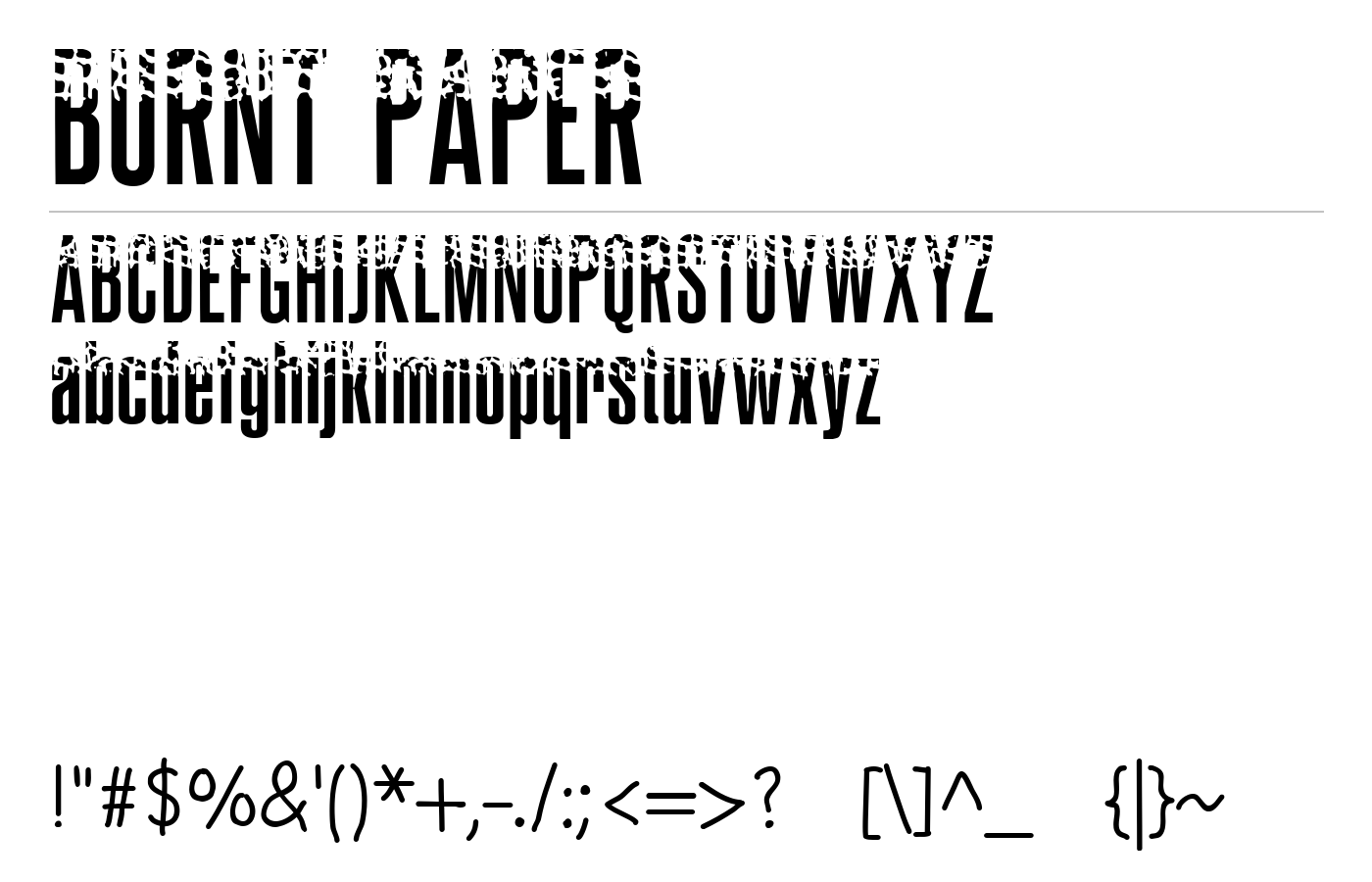
Burnt Paper is a bold, condensed sans serif font with a distinctive distressed texture at the top of each letter, giving it a worn, eroded look reminiscent of burnt edges. Its tall, narrow letterforms combined with the rough irregular pattern create a strong, edgy vibe perfect for attention-grabbing headlines or designs that want to evoke a gritty, urban, or vintage-industrial feel. This font works best in posters, logos, and creative projects where a dramatic, rugged style makes a bold statement.
BURNT PAPER Font
About BURNT PAPER Font
| Font family | BURNT PAPER Font |
| Designer | SpideRaY |